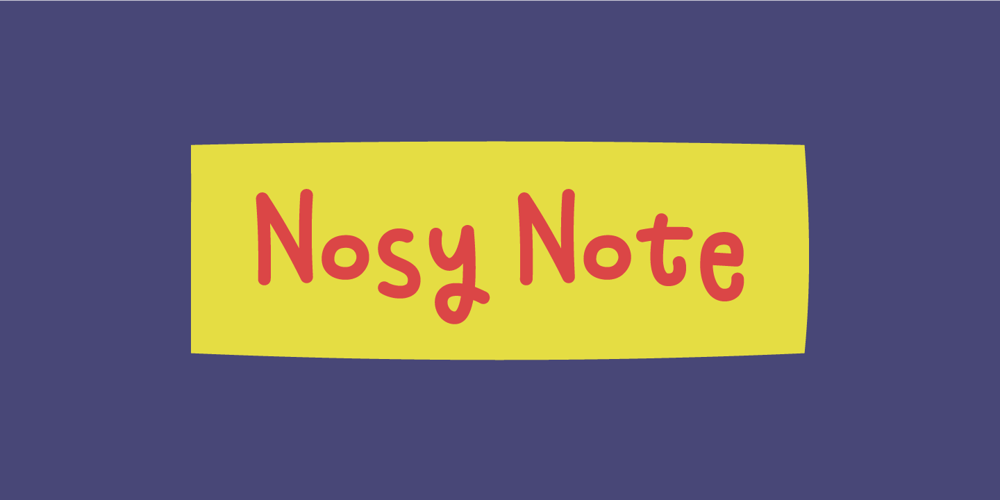
Nosy Note Font Family was designed by Jakob Fischer and published by PizzaDude.dk. Nosy Note contains 2 styles and family package options. Nosy Notes is originally handdrawn, but I digitally traced my sketches and the result is this font – a smooth, super steady and legible comic font. I’ve added multilingual support, in order for you to be nosy in all kinds of languages! 🙂